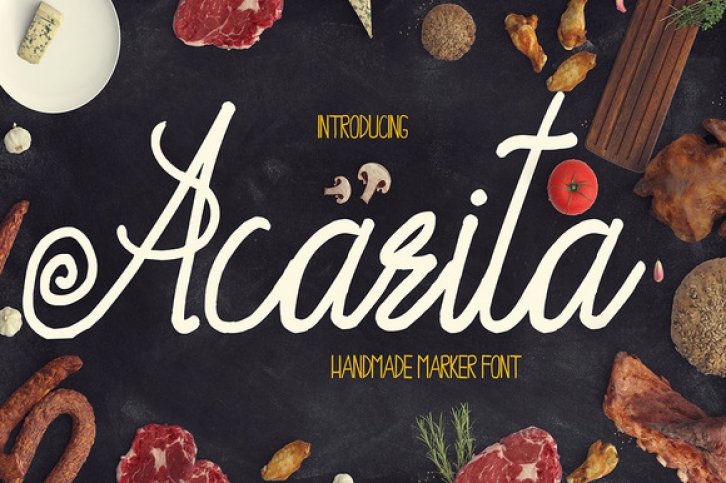
This fashionable typeface is perfect for logos and magazine covers, invitation letters and even book covers. The possibility’s are endless with this amazing handmade marker font!